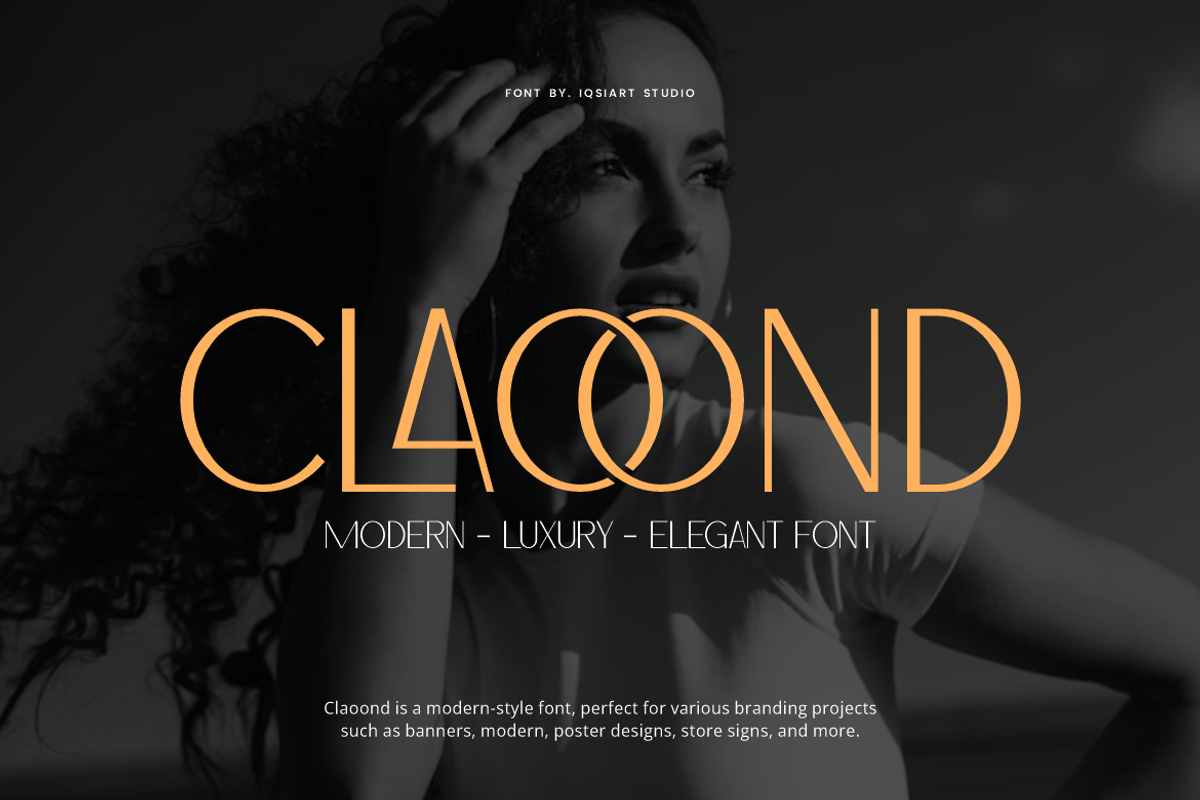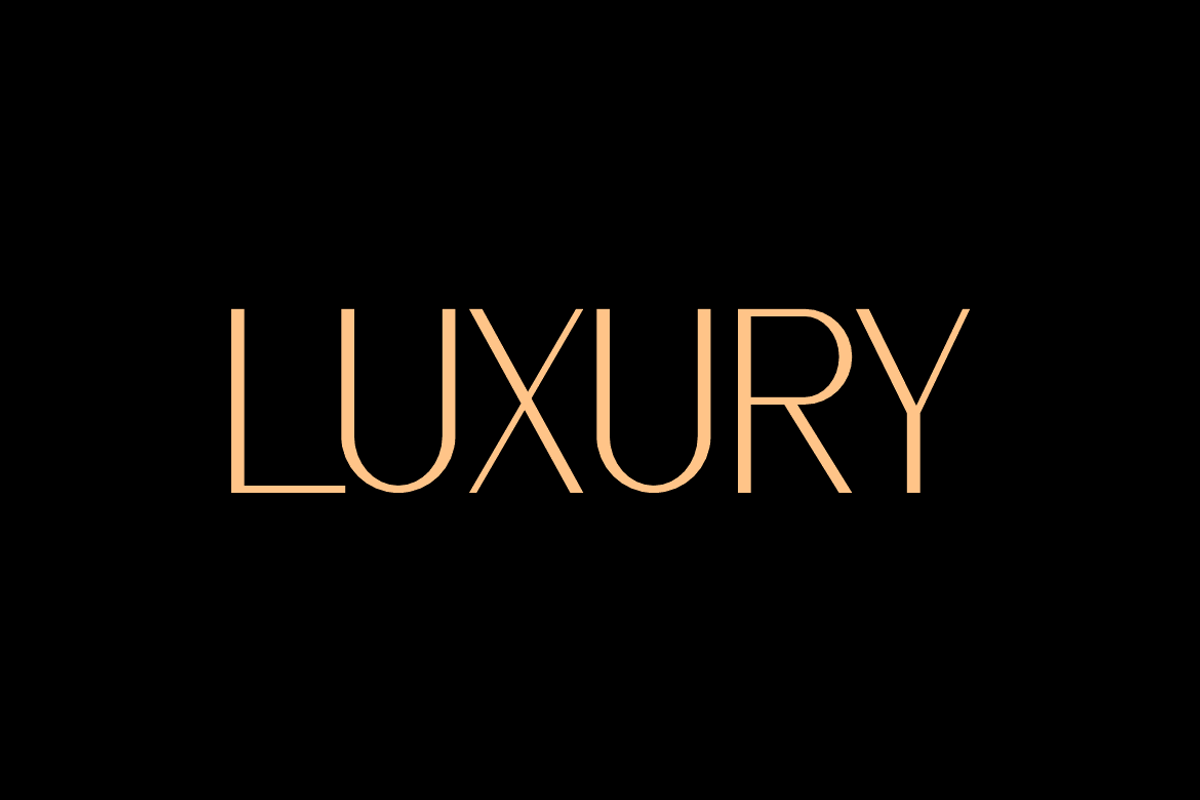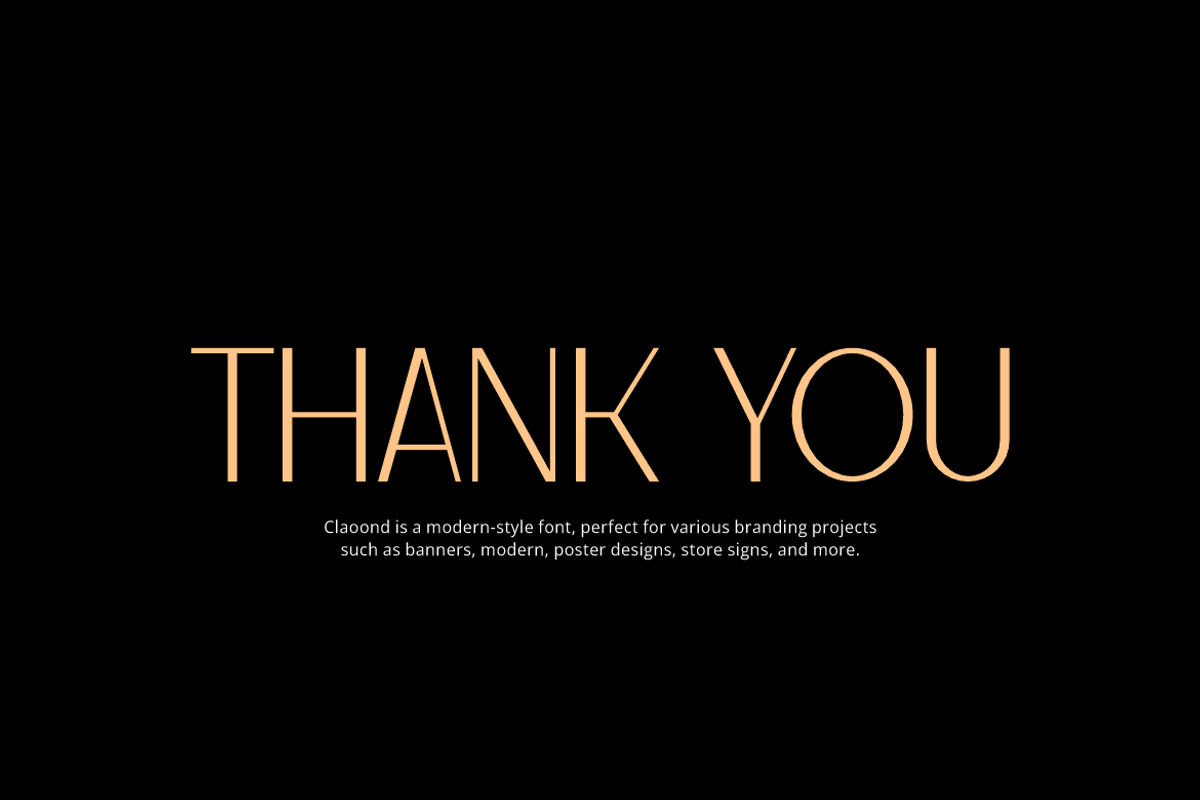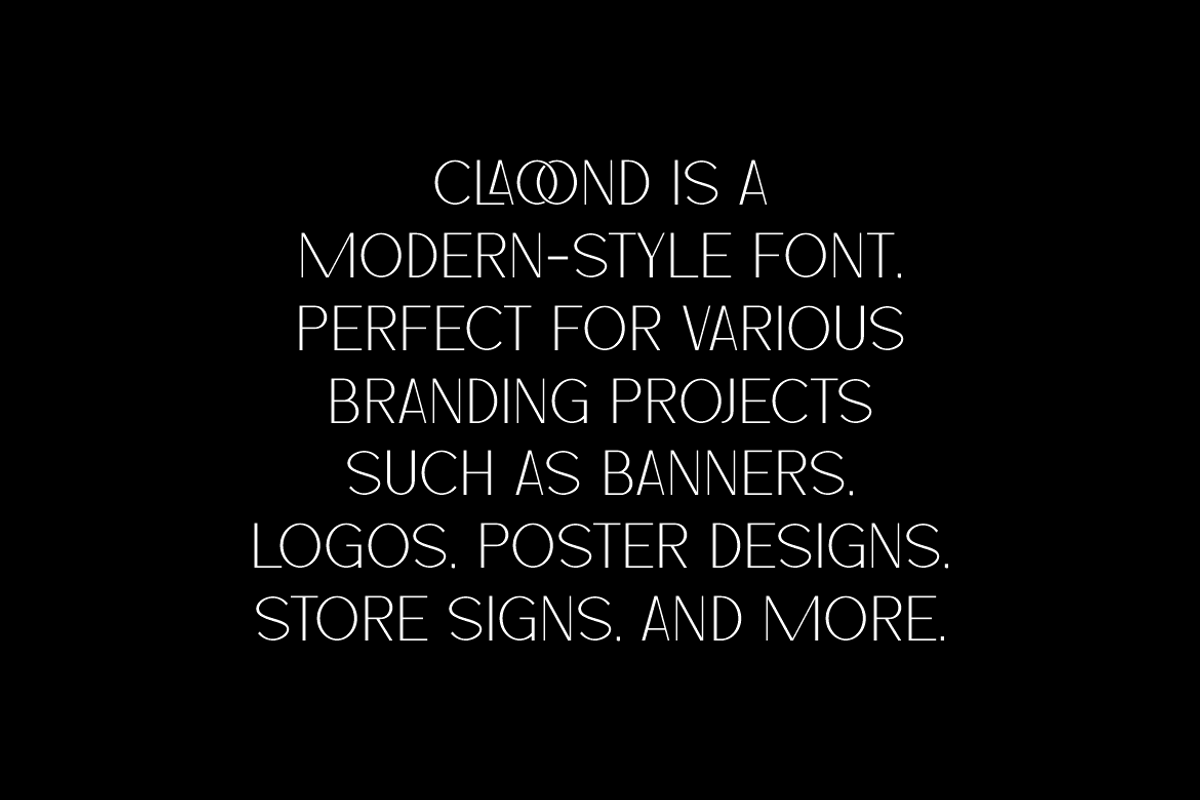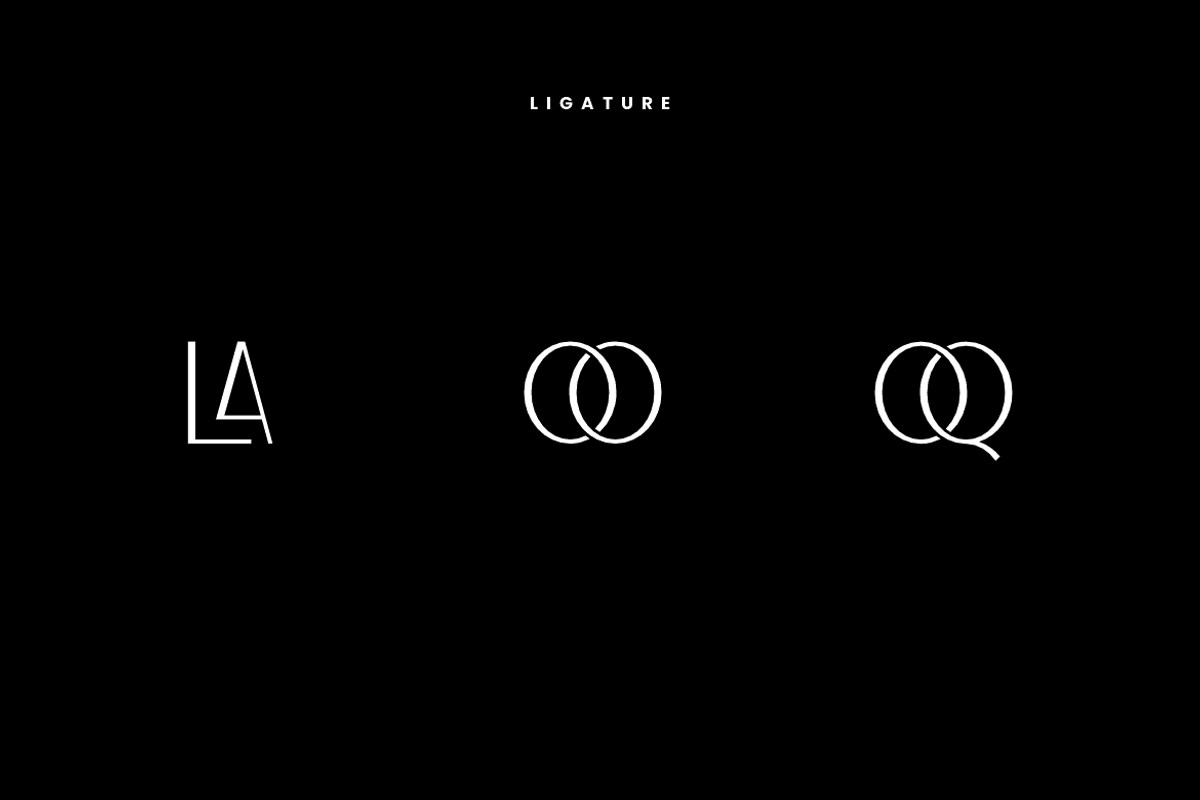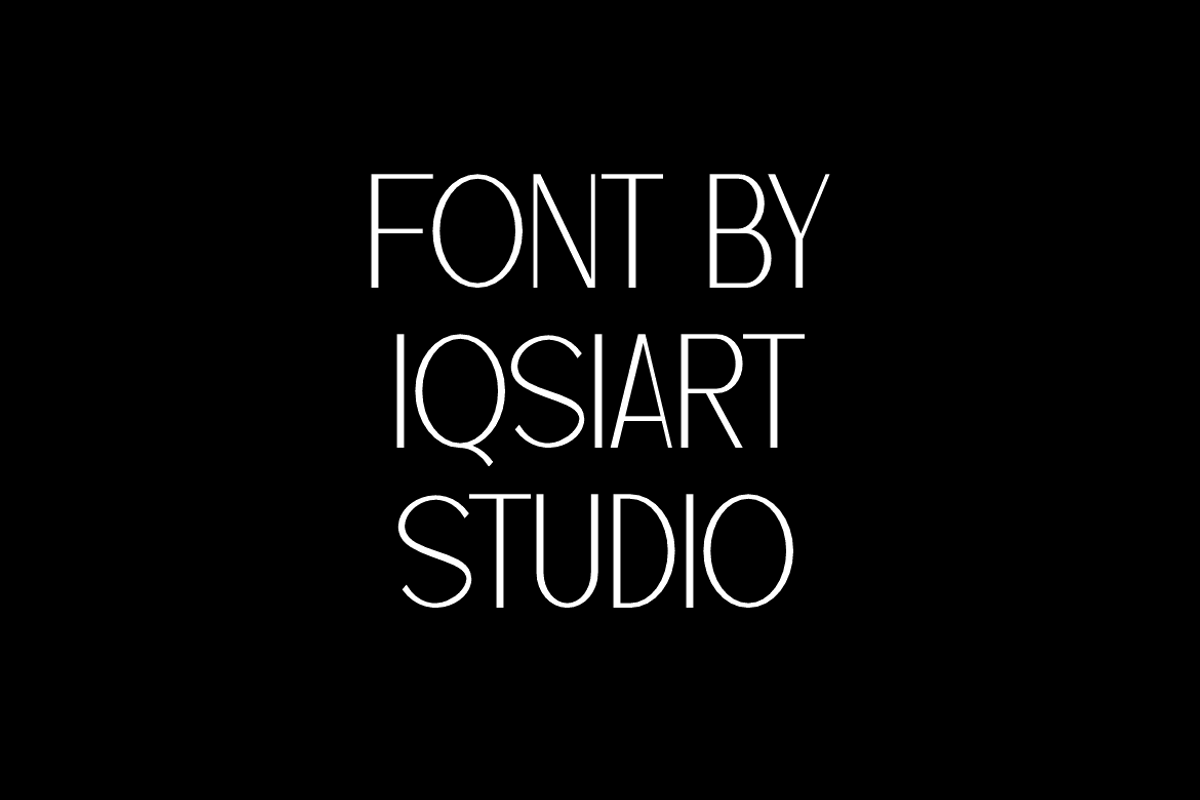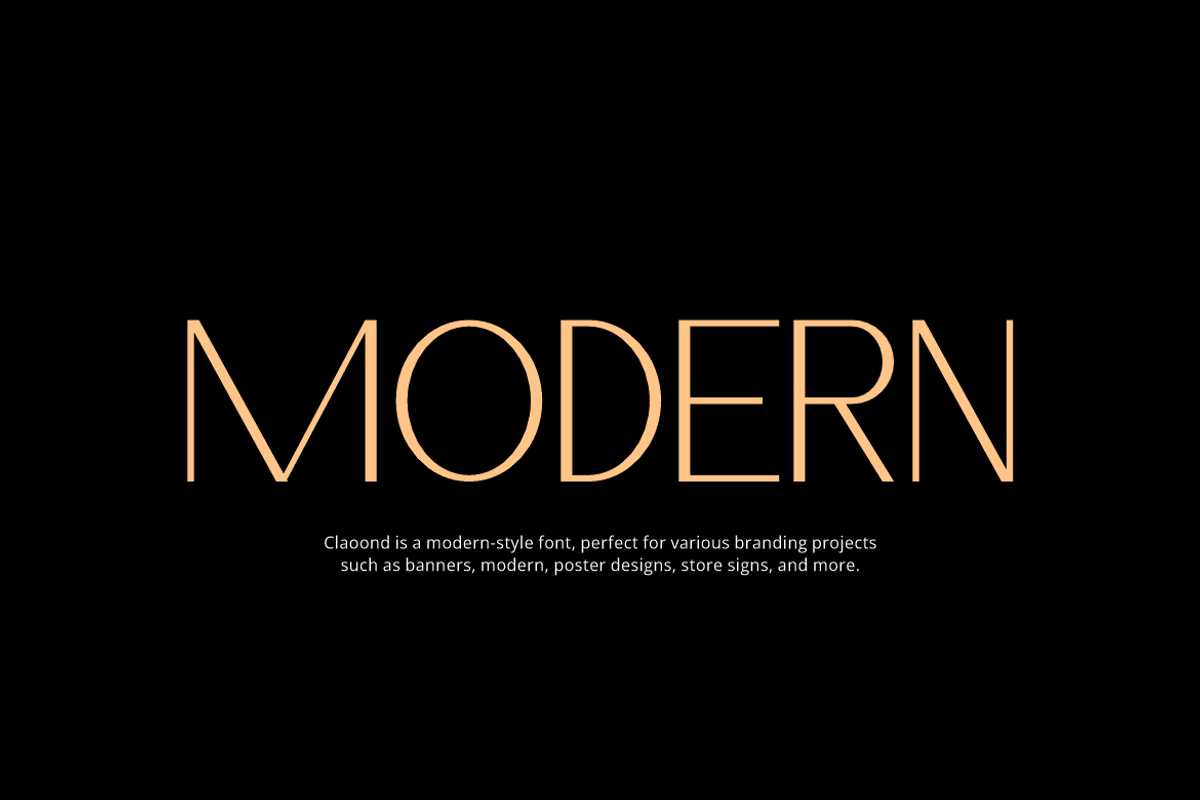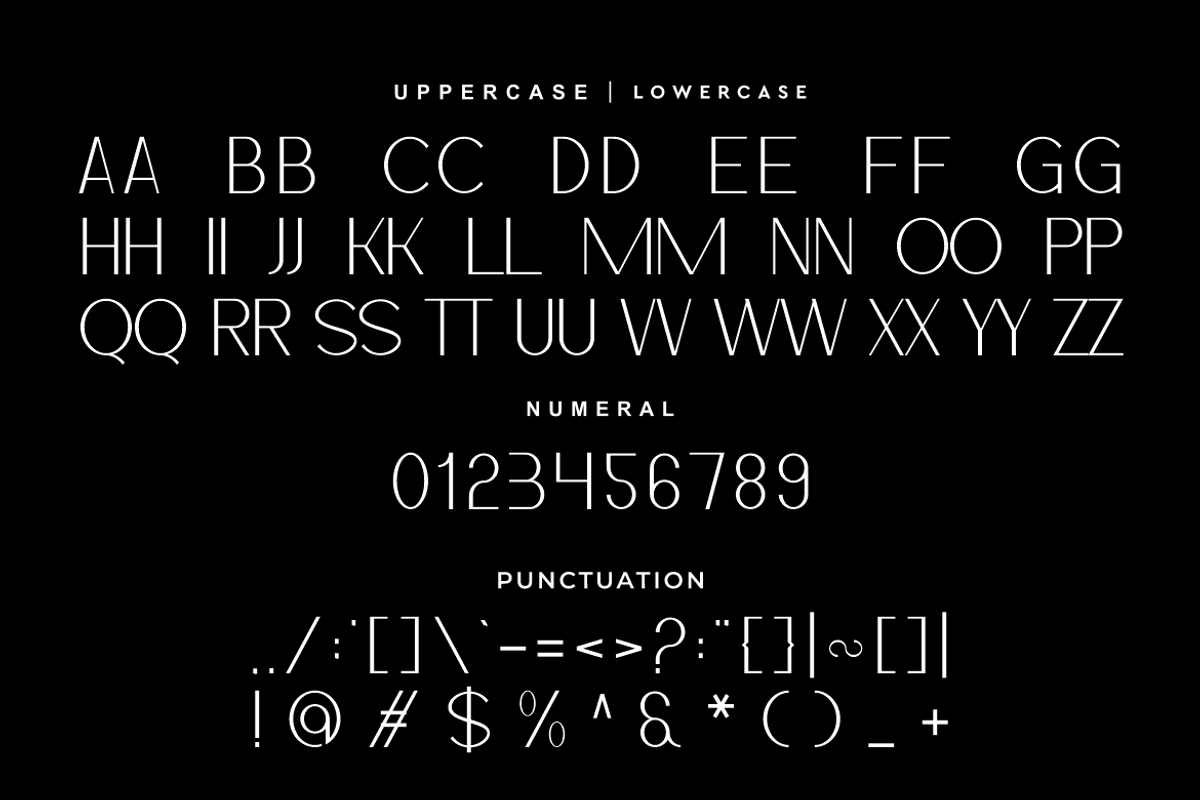
Claoond - Modern Elegant Font
Claoond Font is a bold and authentic display typeface that suits a variety of design needs. We offer a wide range of themes and font styles — visit our profile to explore more and find the perfect style for your project.